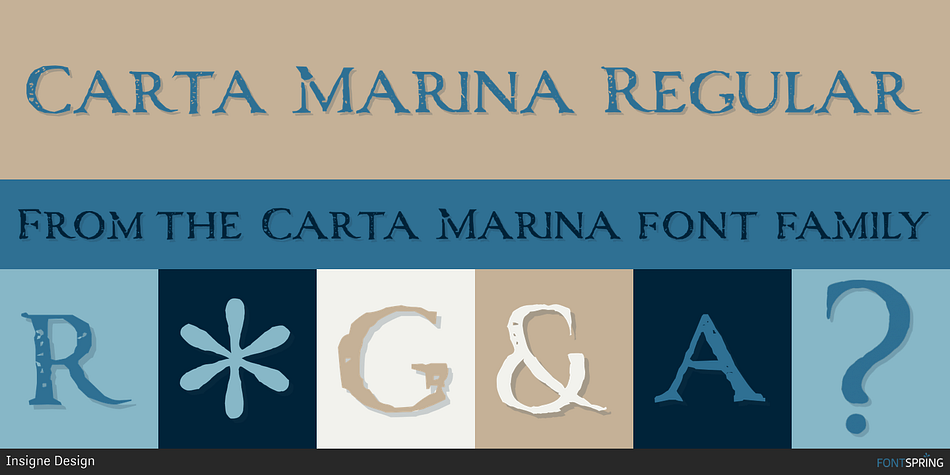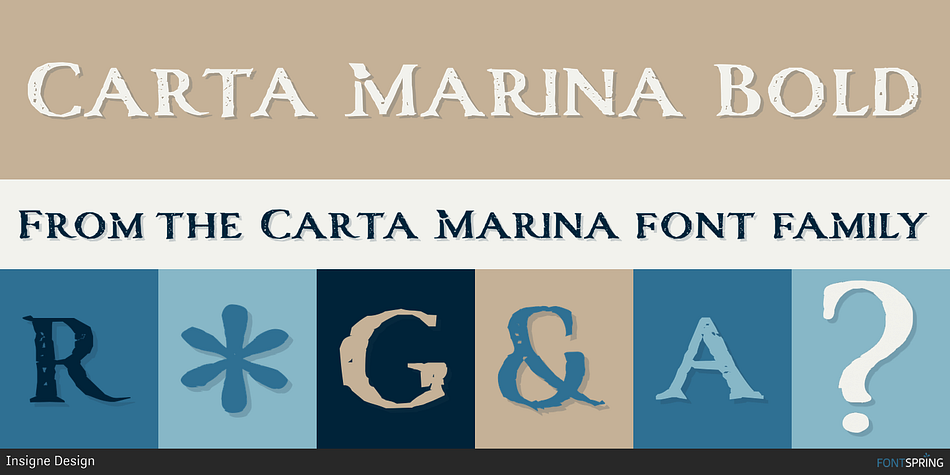
Carta Marina is a historical font family. This typeface has two styles and was published by Insigne Design.
Carta Marina is based on the titling found on the famous map drawn by Olaus Magnus in 1539. The map of northern Europe took 12 years to complete, and the total size is a huge 1.7 meters tall by 1.25 meters wide. More information about the map, as well as the high resolution reference document used to create the typeface and illustration set can be found at the James Ford Bell Library, University of Minnesota.
The titling is slightly aged, very sturdy and elegant. Carta Marina includes a full set of OpenType alternates for every character in the English alphabet, oldstyle figures, historical forms, small caps and 64 discretionary ligatures. These ligatures are used to alter the appearance of the type so that the printing appears realistic and without any duplicate letters to detract from the antique appearance.